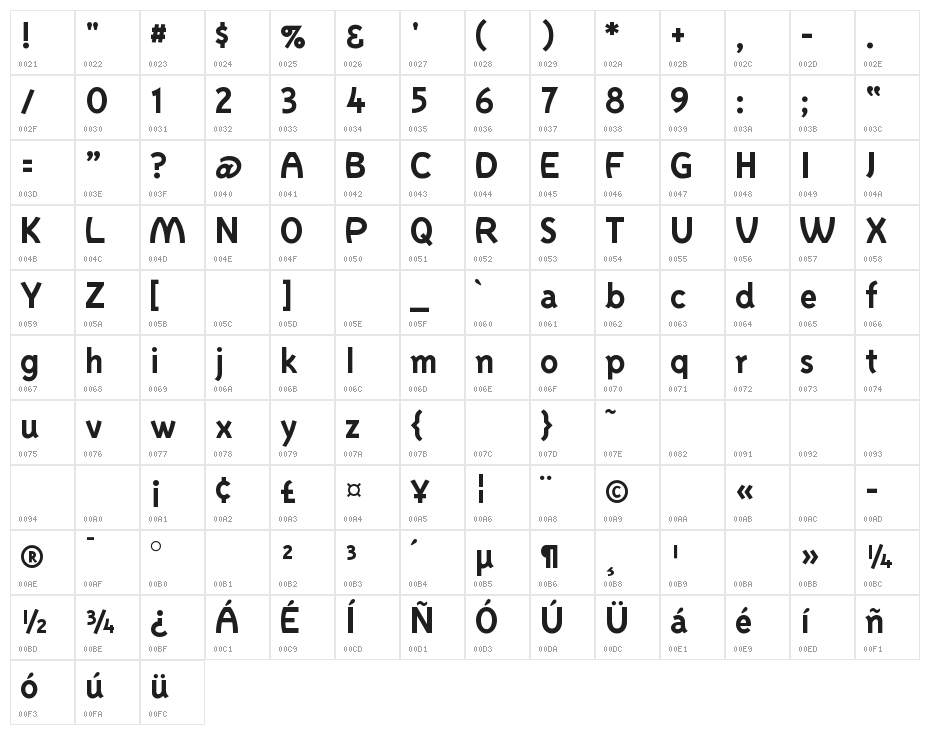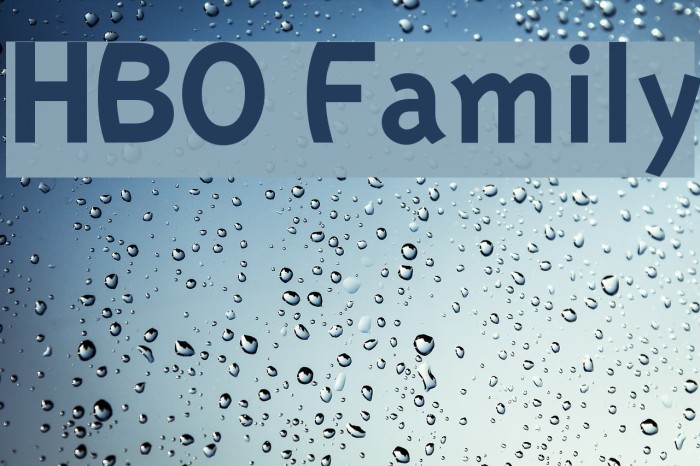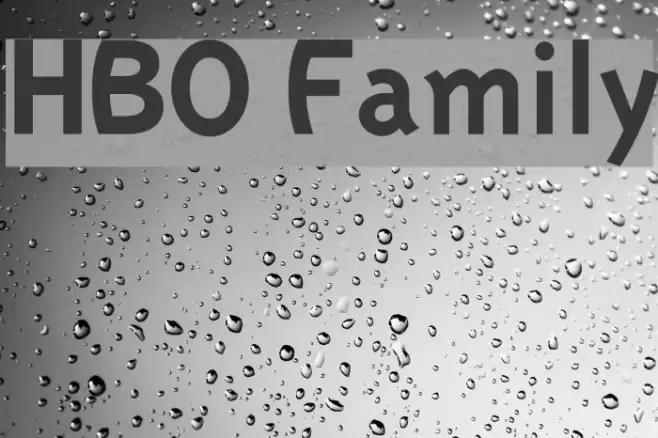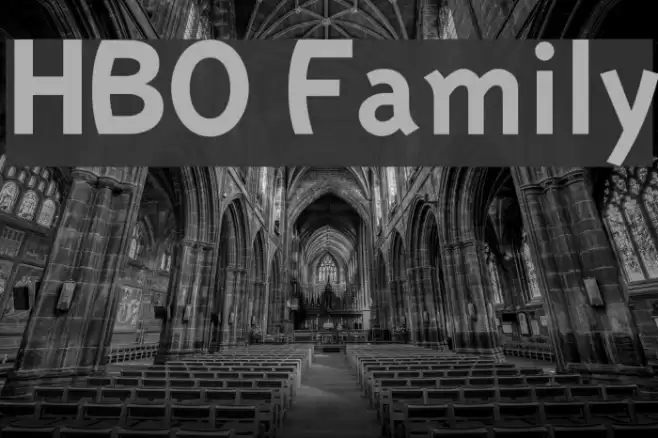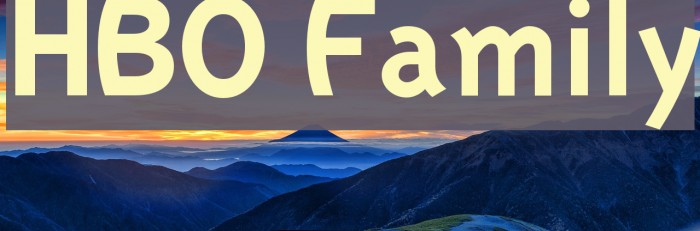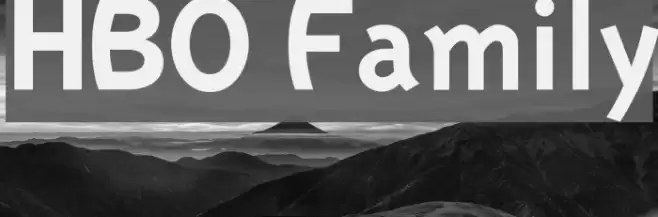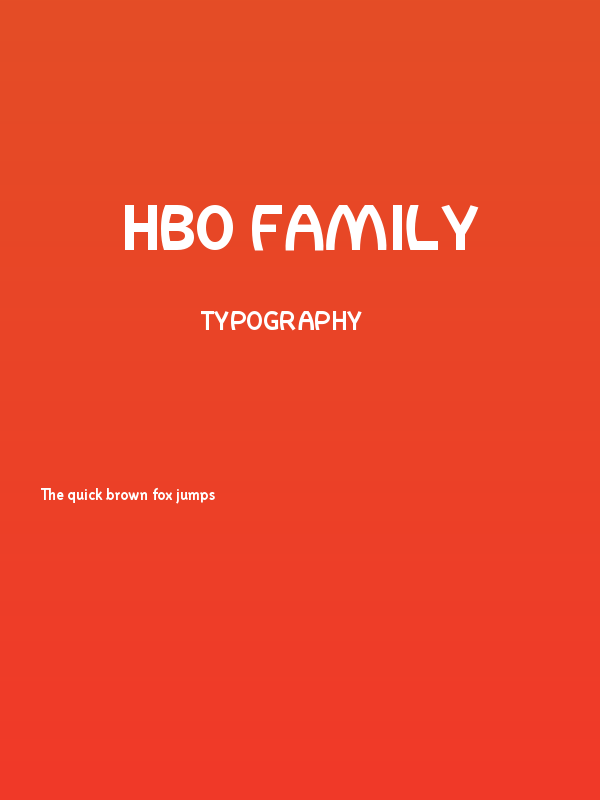
HBO Family Font
HBO Family Description
This font features a bold and playful design, characterized by its rounded edges and uniform stroke width. The uppercase letters are slightly taller than average, giving them a commanding presence, while the lowercase letters maintain a consistent height that complements the uppercase. The numerals are clear and legible, with a slight curve that adds to the font's friendly appearance. Special characters are well-defined, ensuring versatility in various applications. Overall, the font conveys a sense of fun and approachability, making it suitable for family-friendly content.